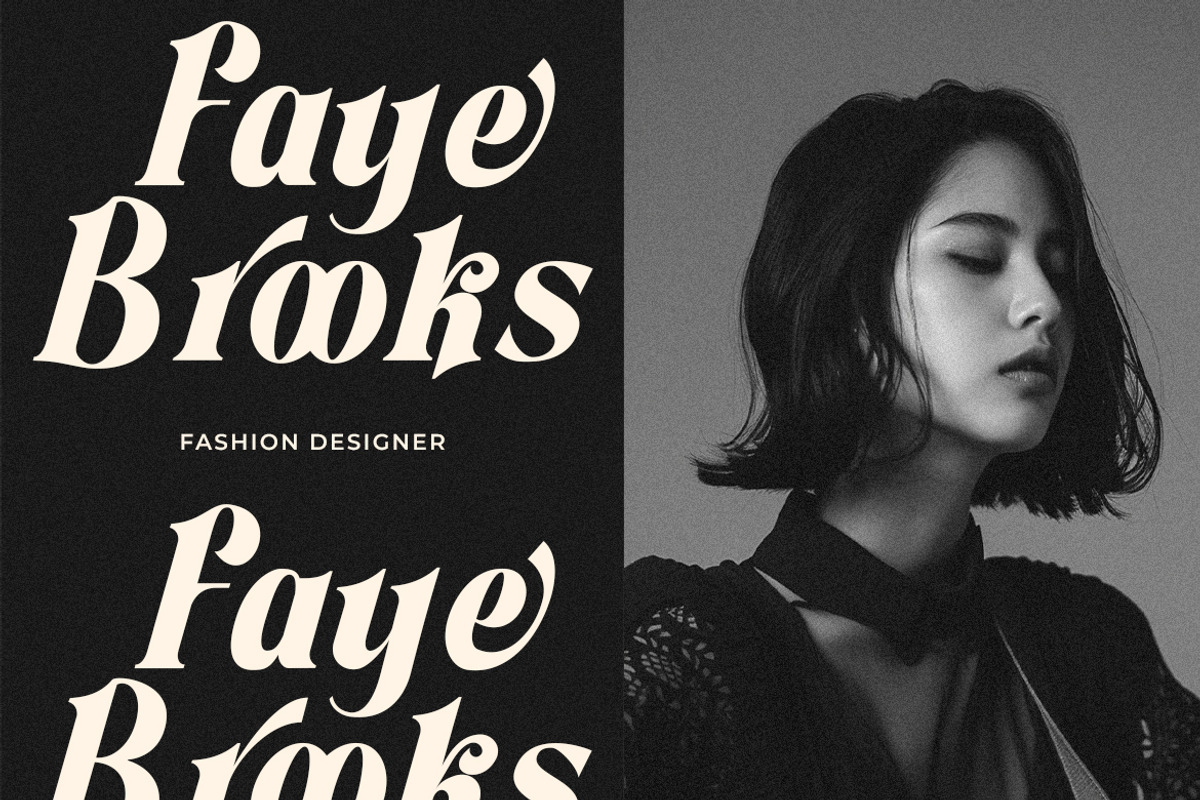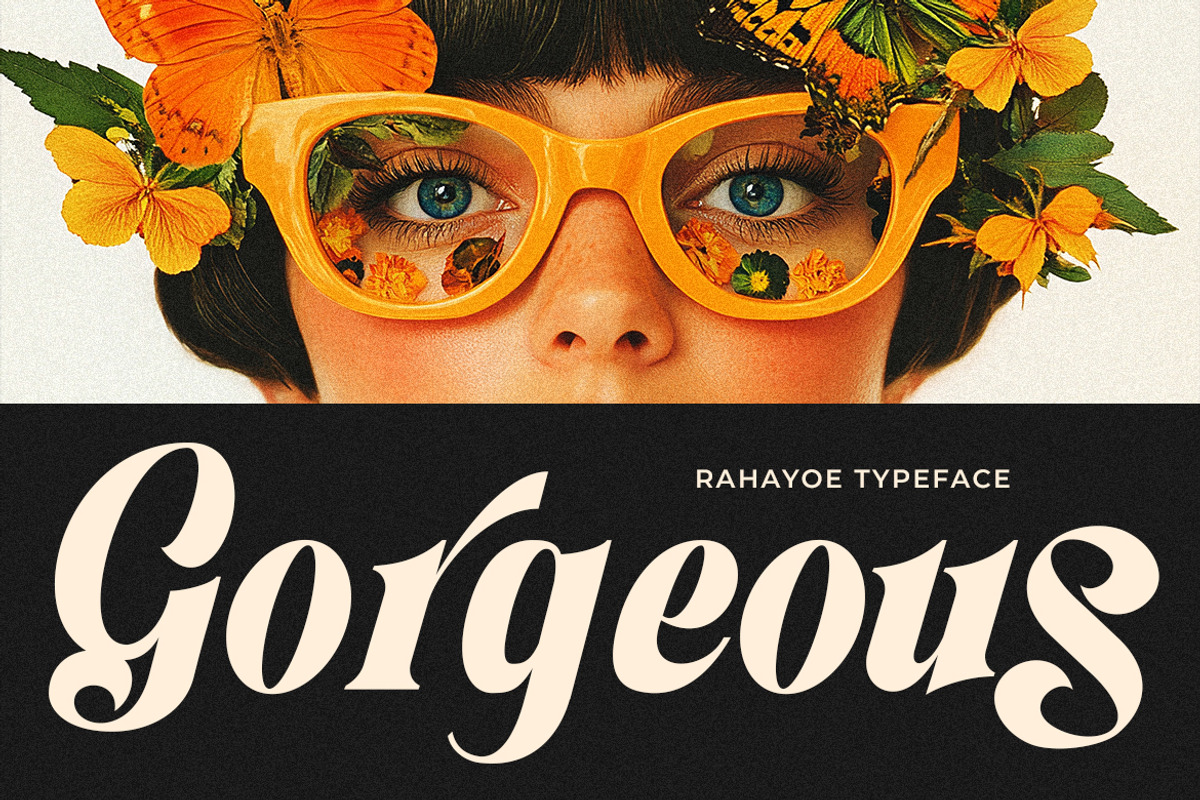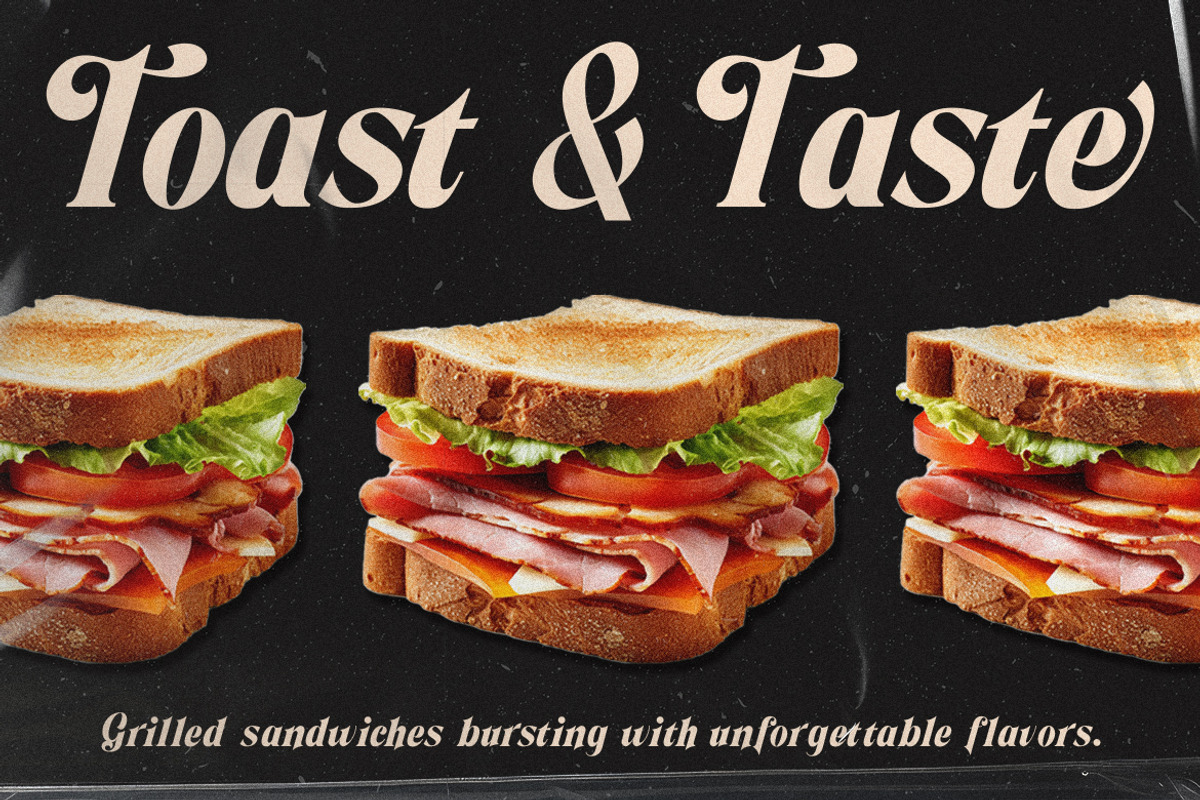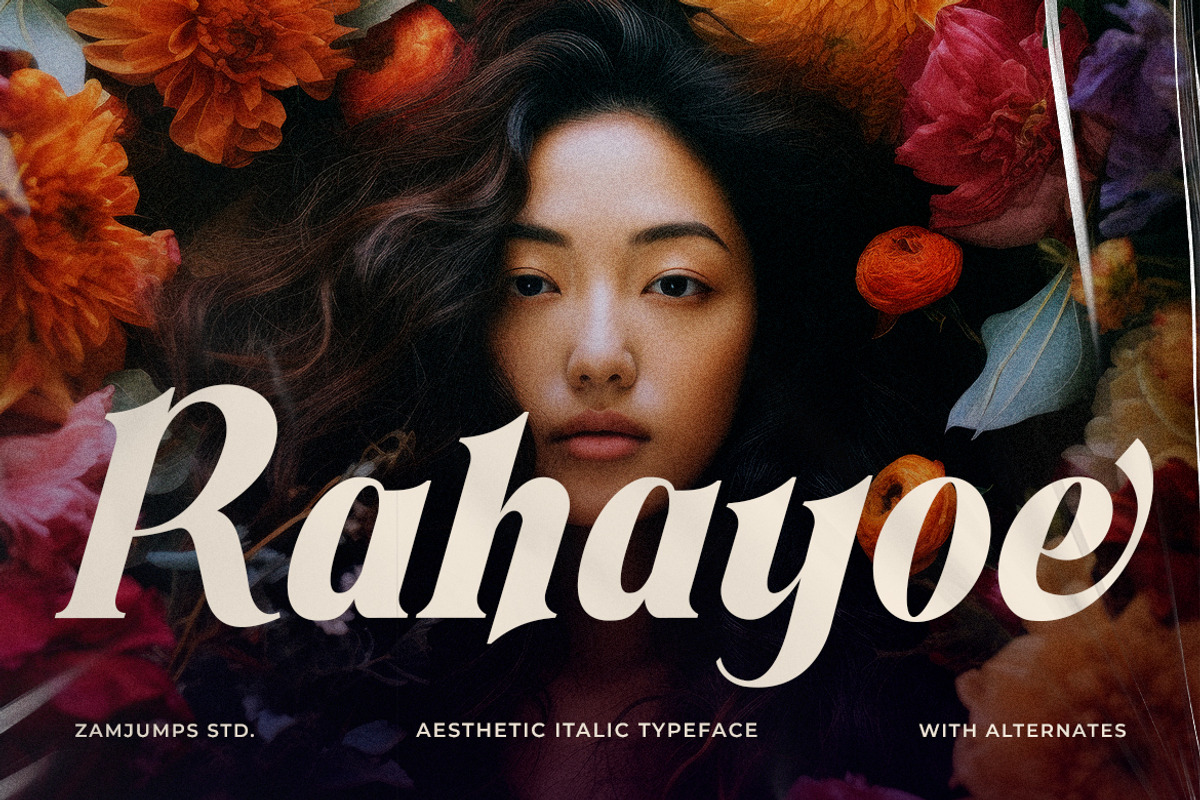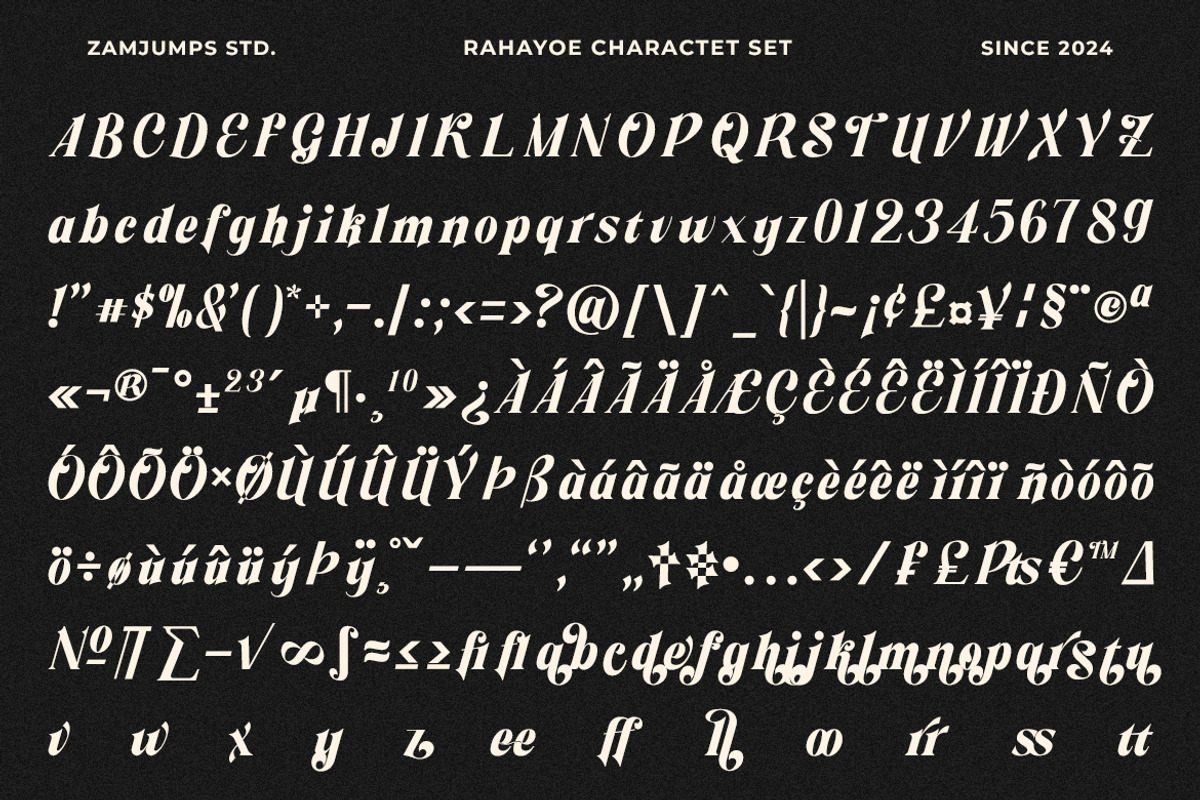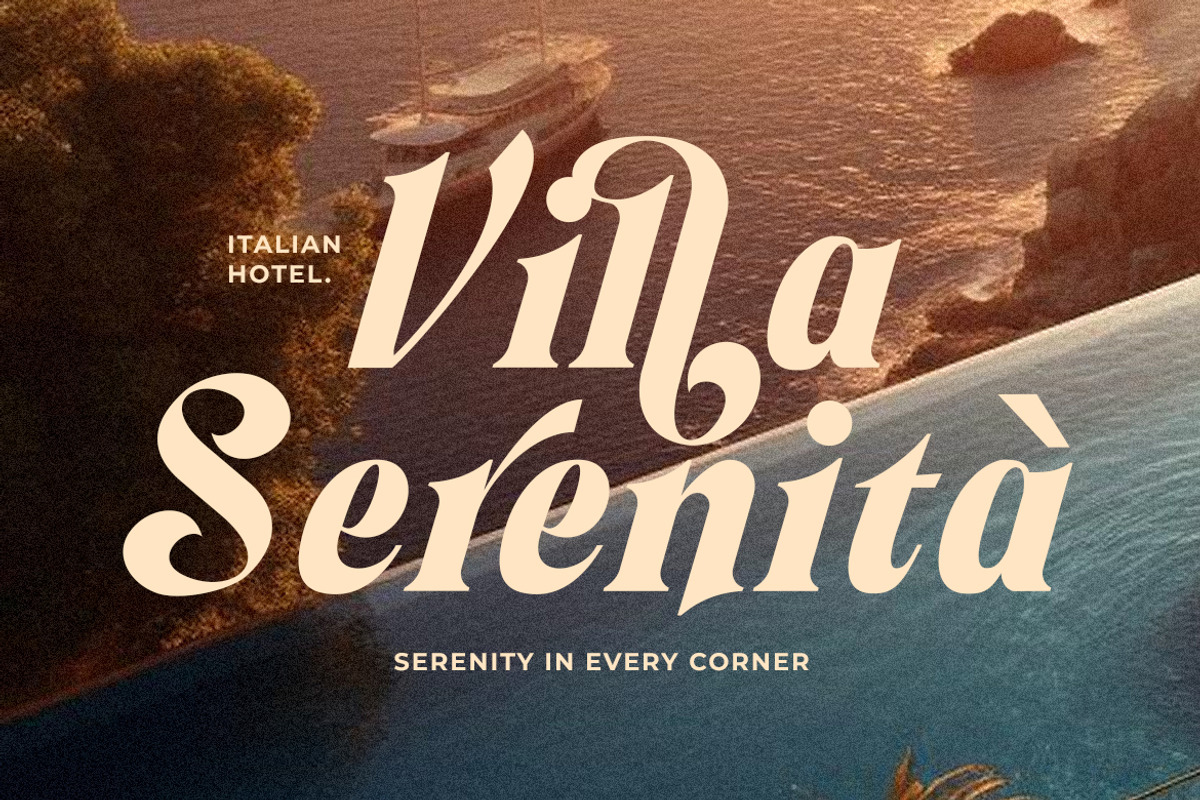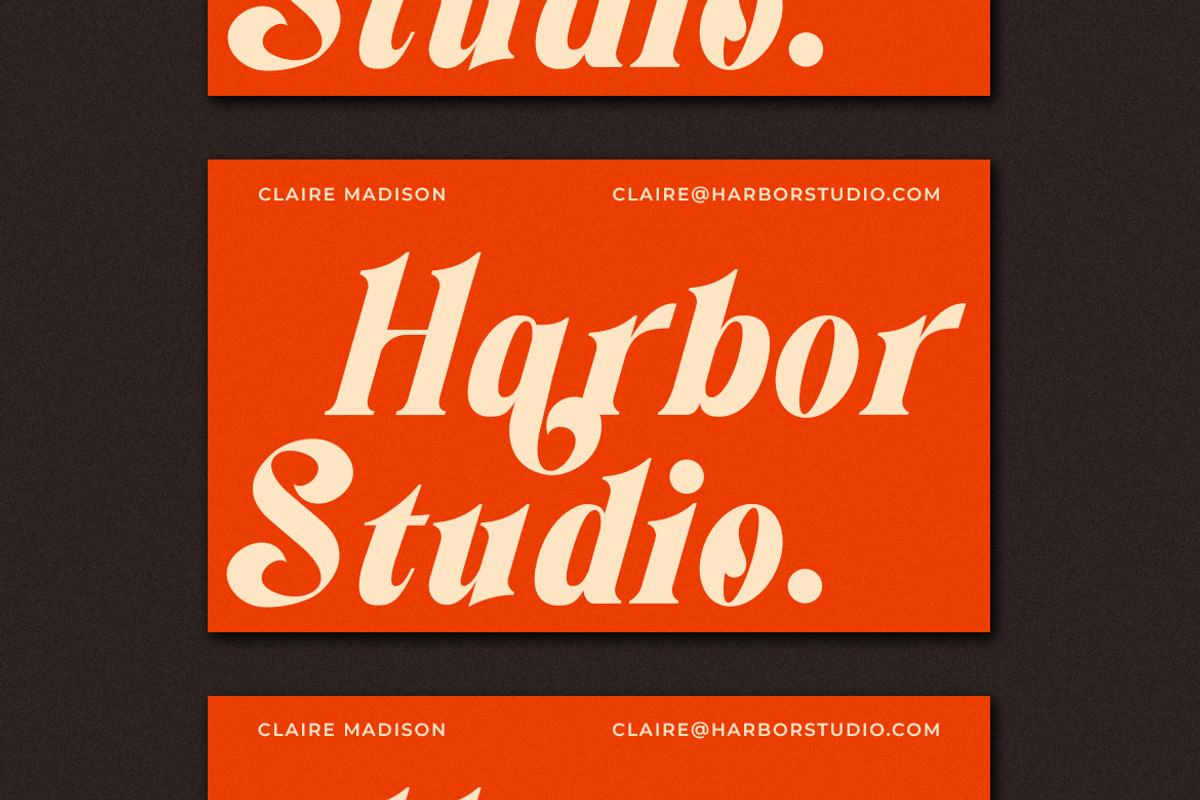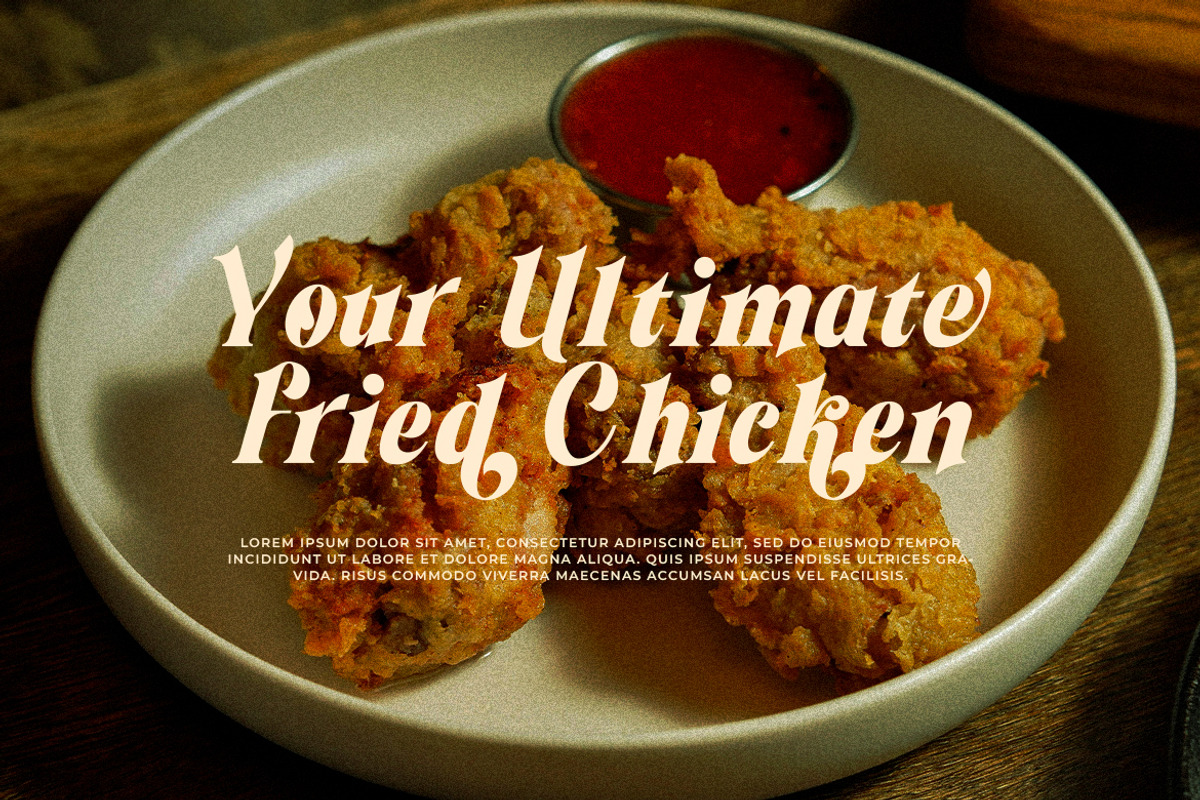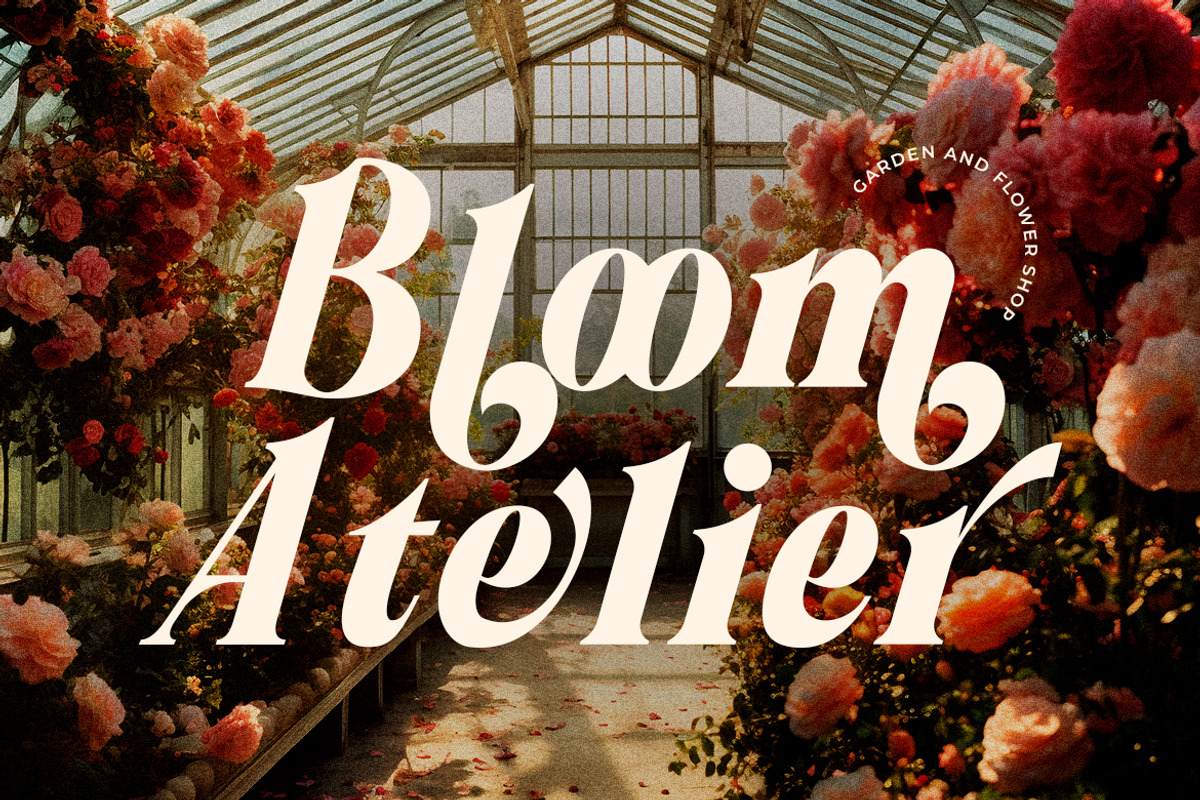
Rahayoe - Aesthetic Italic Typeface
Rahayoe is an elegant cursive-inspired font designed to bring a touch of sophistication and aesthetic style to any project. Its flowing, slanted letterforms evoke a sense of fluidity and graceful movement, making it ideal for designs that require a soft yet contemporary feel. This aesthetically pleasing italic font exudes a refined, artistic feel, perfect for creative projects that want to make a lasting impression. With its gentle curves and organic strokes, Rahayoe blends modern sensibilities with the timeless charm of handwriting, offering versatility in a variety of applications, from branding and invitations to social media posts and packaging, headlines, logos, or personalized text. Its subtle slant adds an element of dynamic energy, while maintaining the legibility needed for professional design work. Whether you’re designing a boutique brand or crafting a stylish look for your next creative venture, Rahayoe’s modern yet nostalgic aesthetic will elevate your work to the next level. INCLUDED : TTF Format File OTF Format File WOFF/WOFF2 Format File Ligature Lowercase Alternate Multilanguage